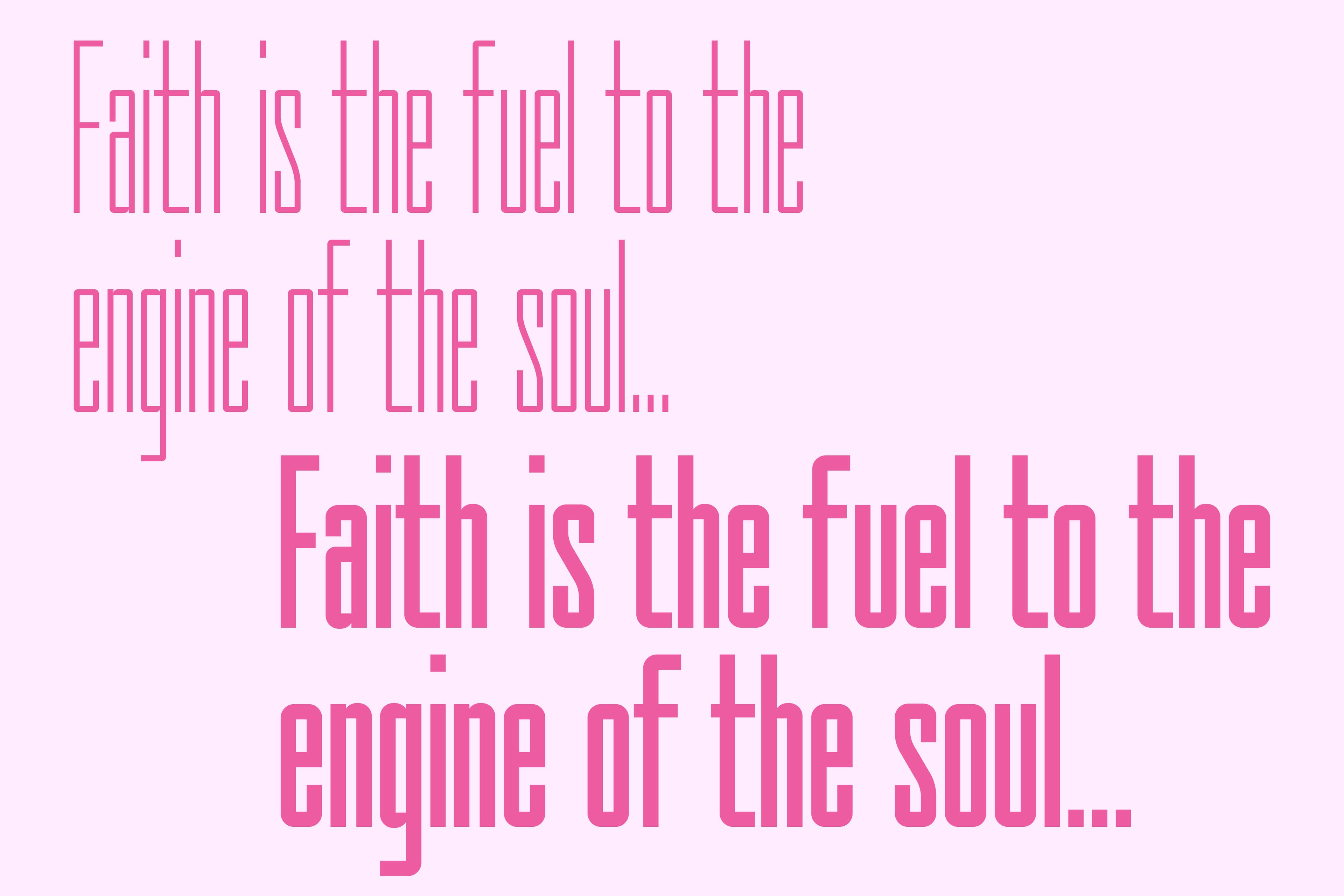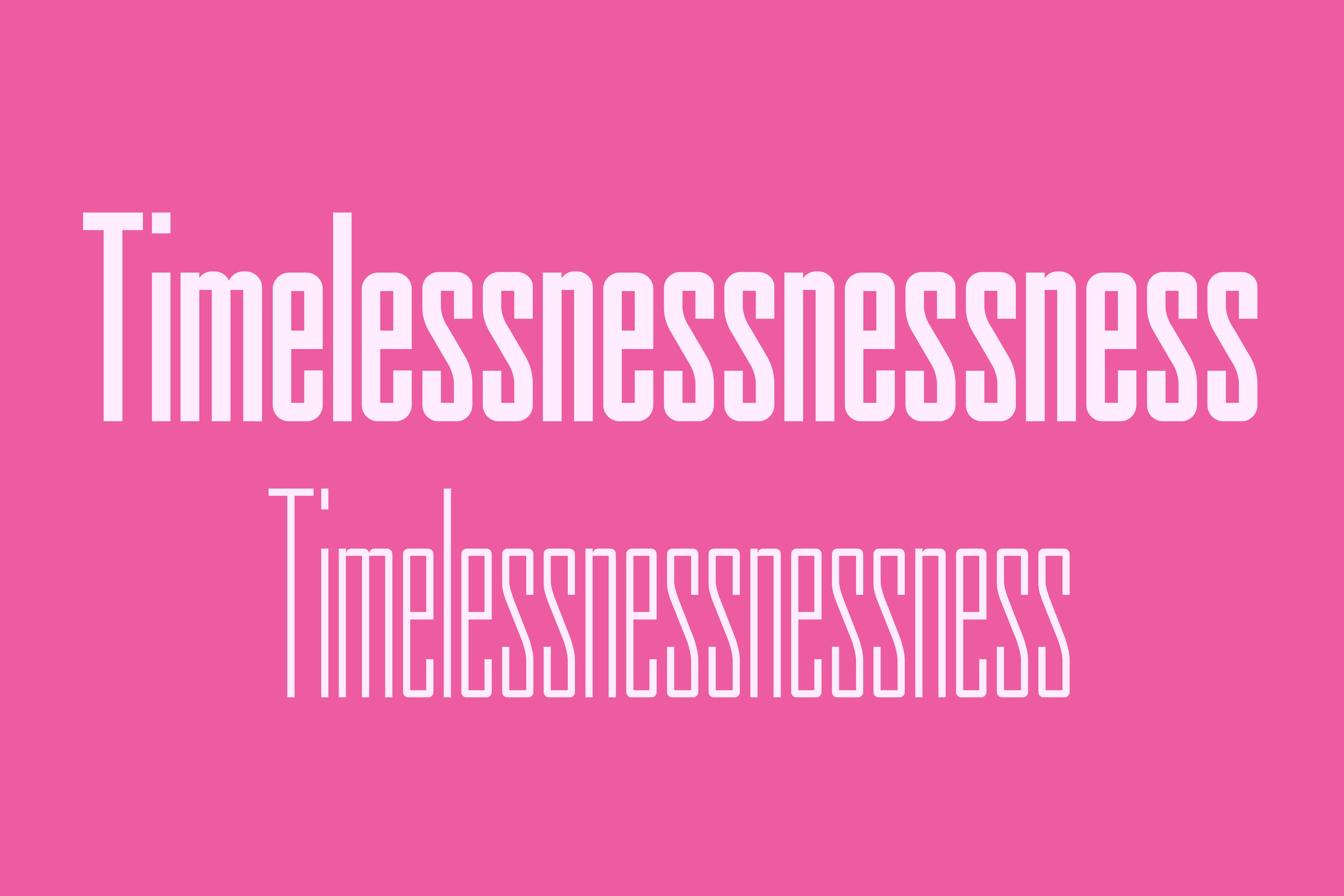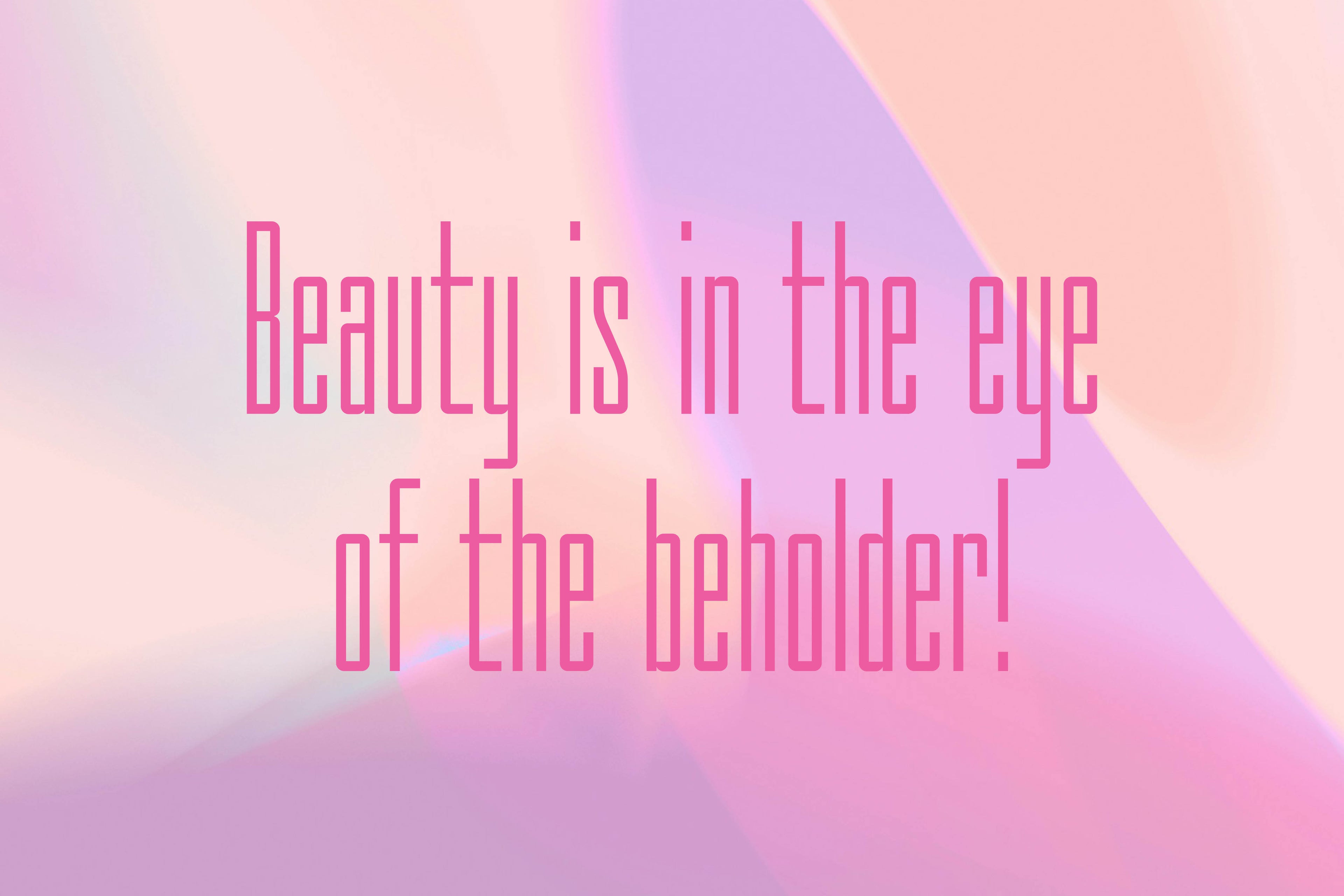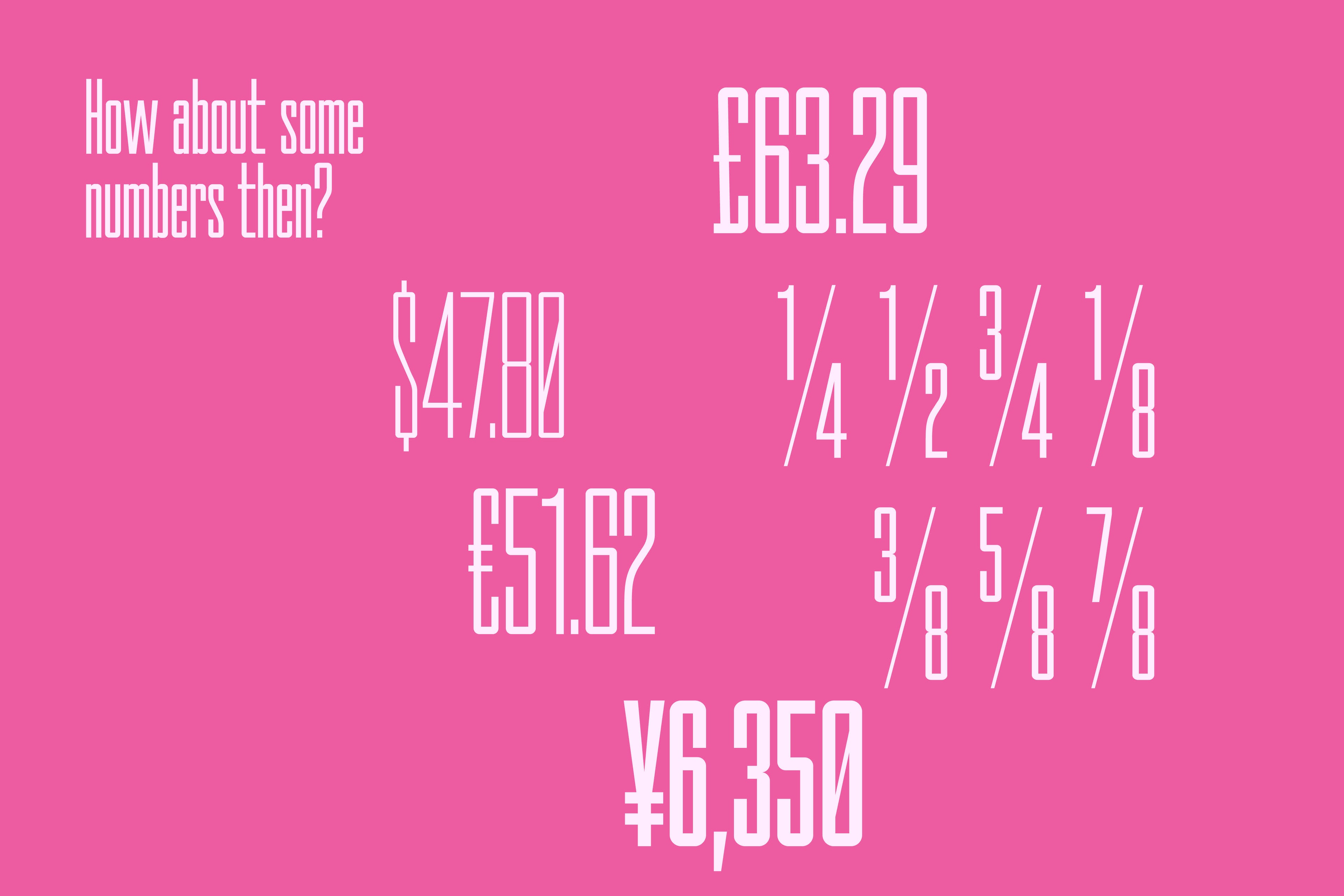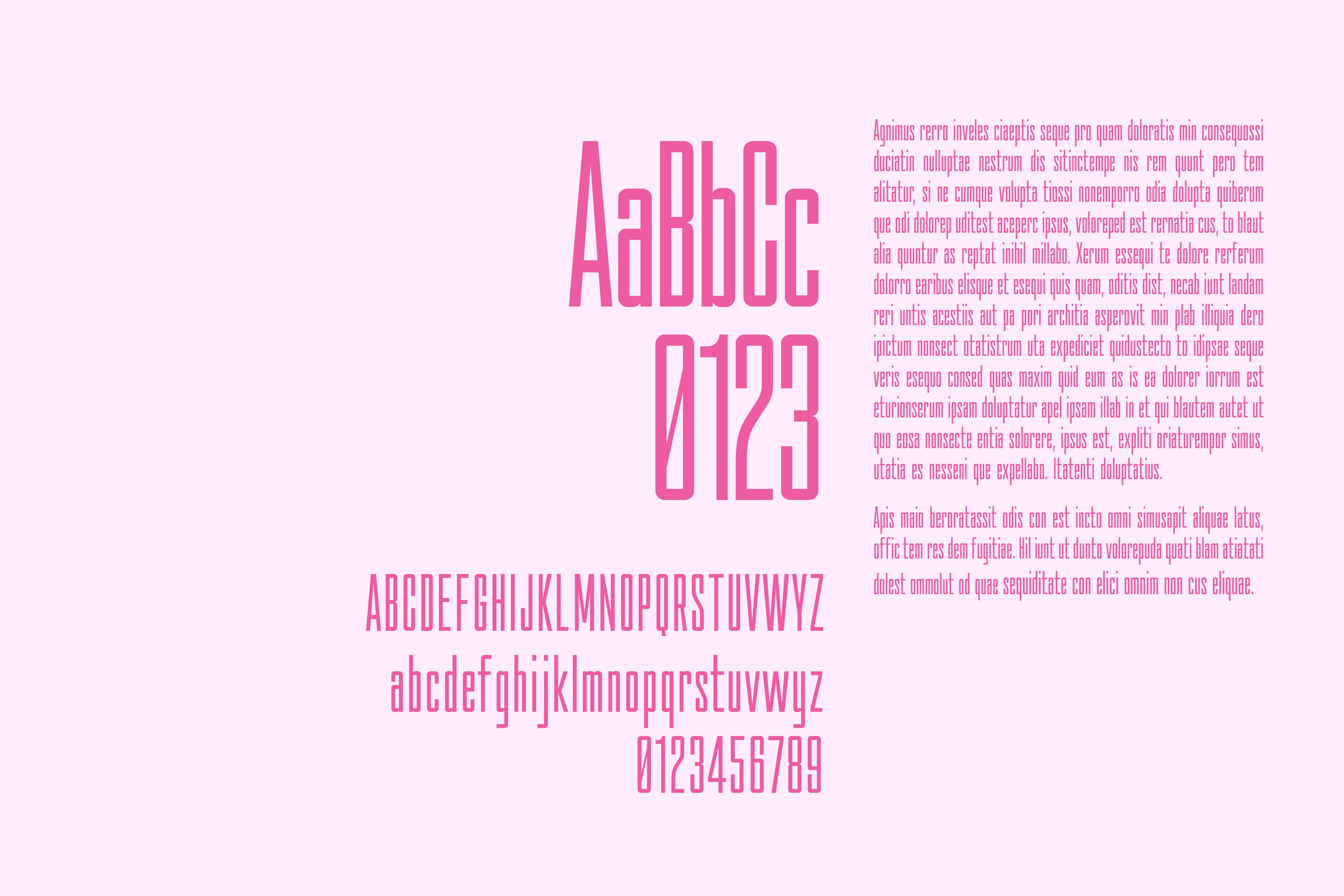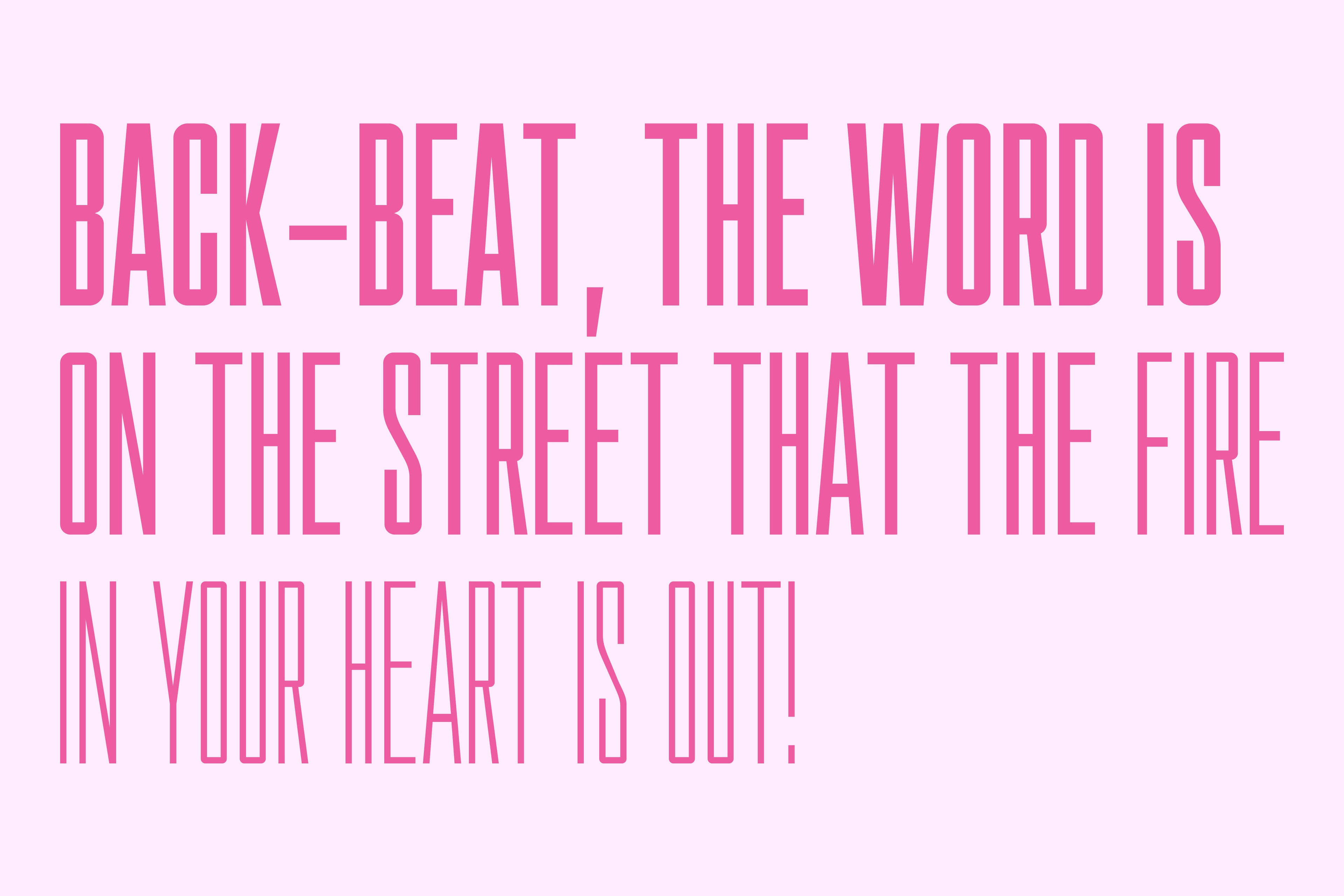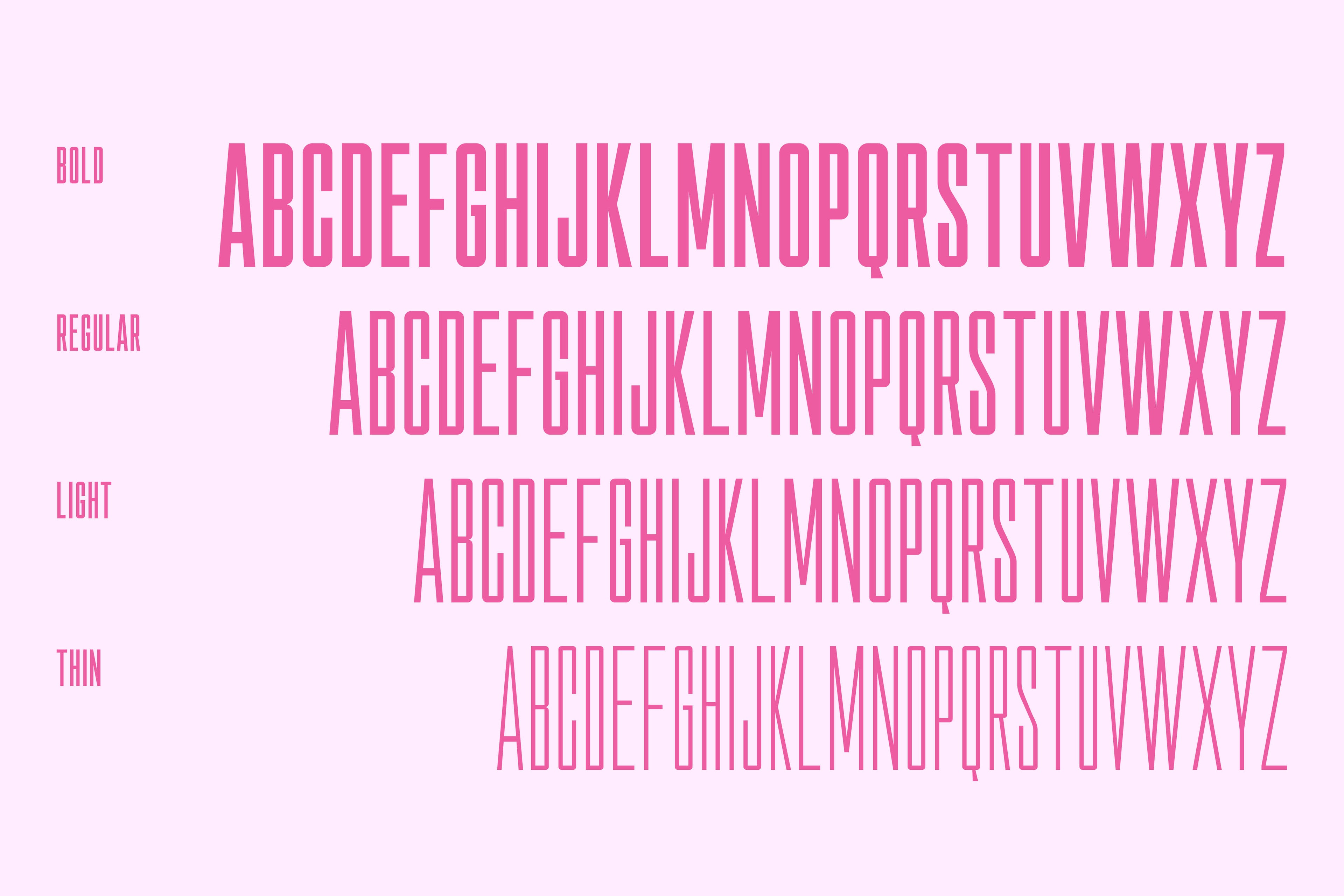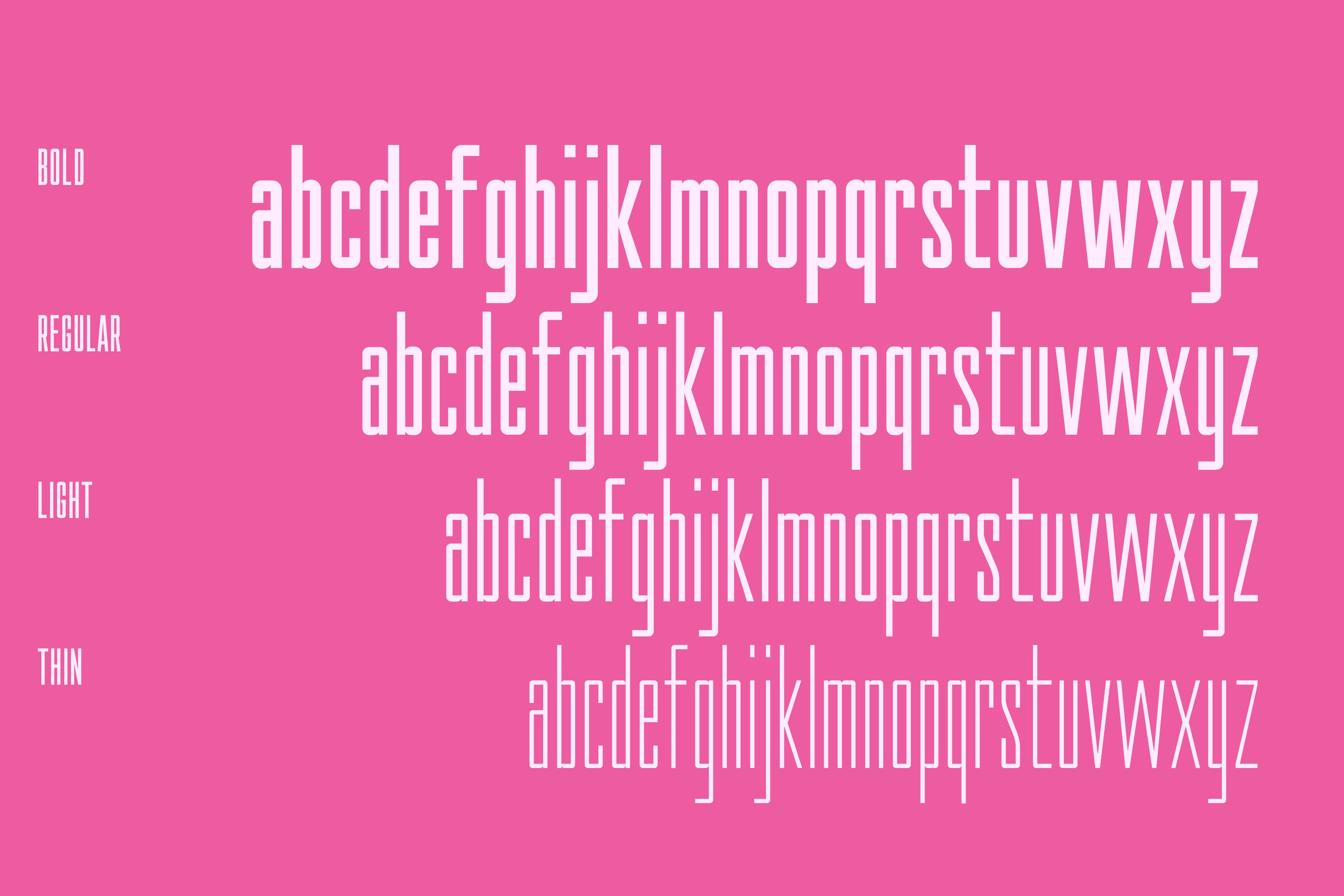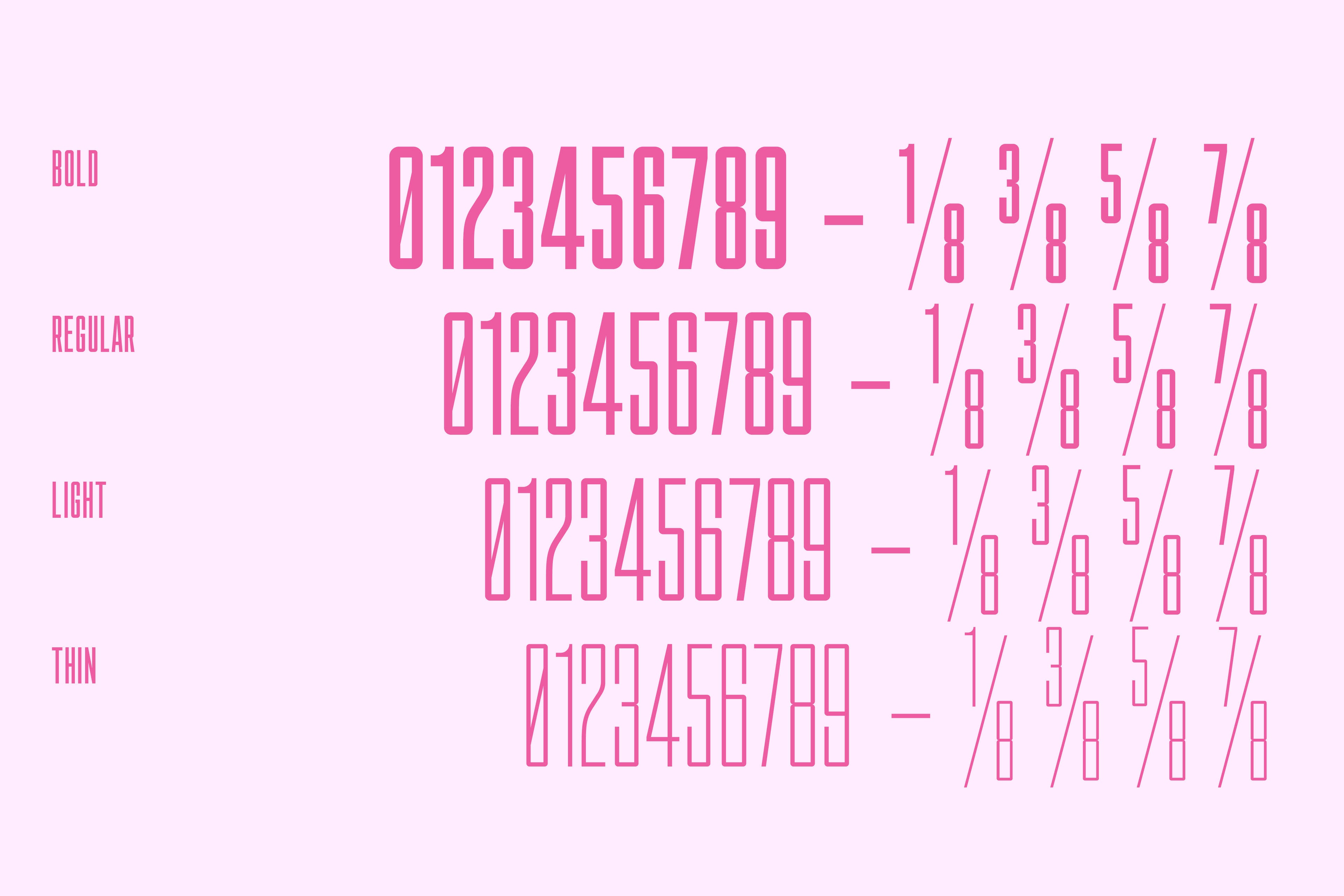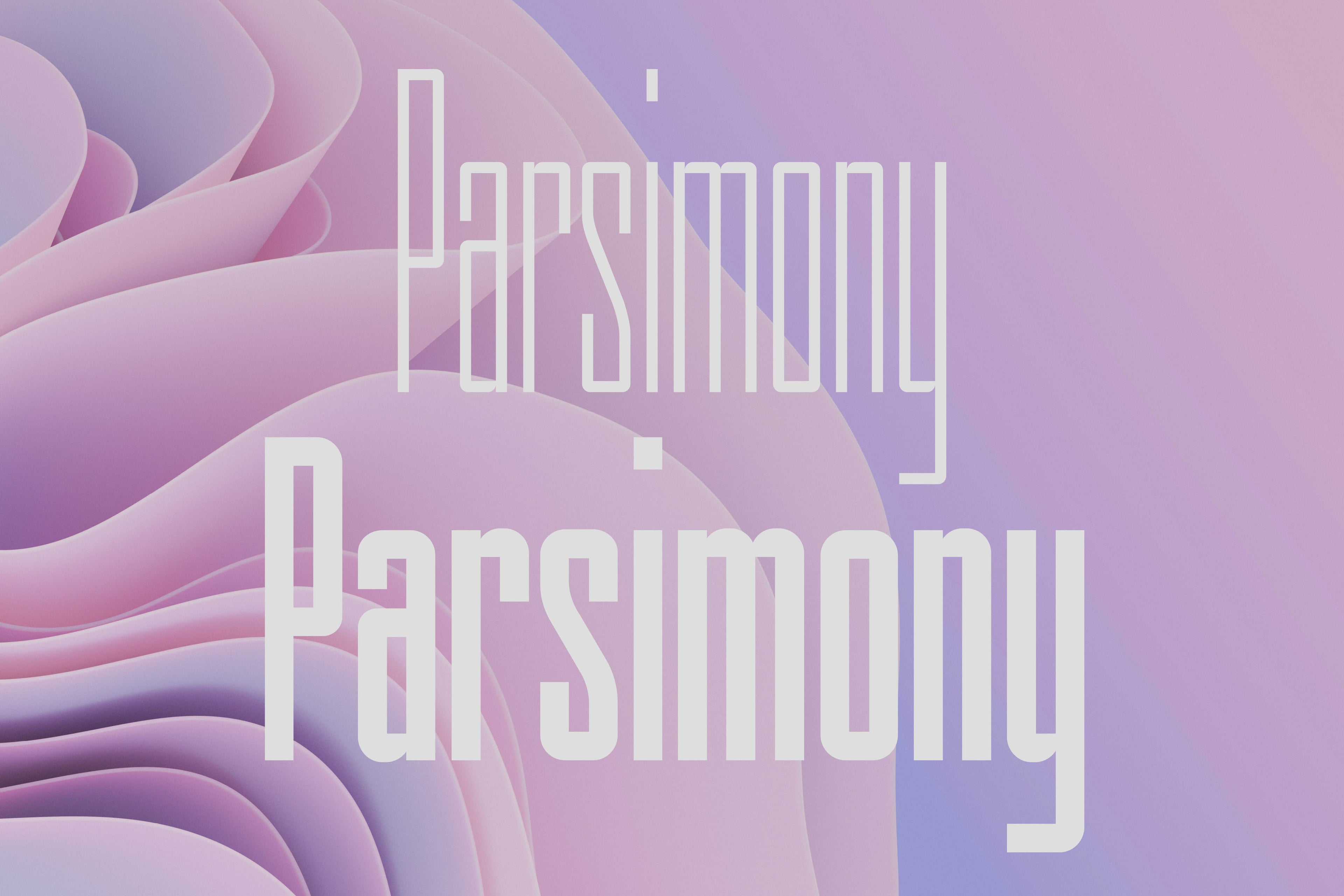
Introducing Compressed Jam, a revolutionary typeface that seamlessly blends elegance with efficiency. Crafted with precision and a creative touch, this compressed sans serif family has been meticulously designed to breathe new life into headlines, logos and other small pieces of text. With its sleek and condensed letterforms, Compressed Jam commands attention and exudes a sense of modernity, making it the perfect choice for those seeking a balance between style and space-saving functionality.